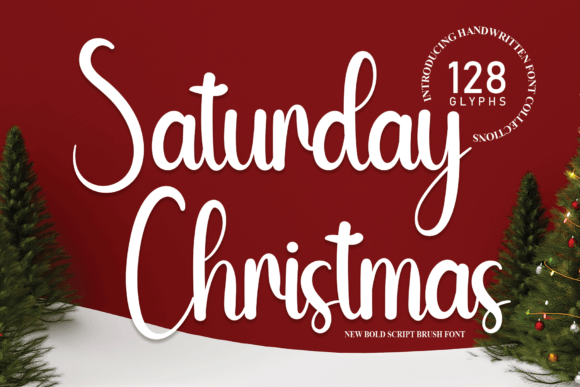
Journey through a world of festive cheer with Saturday Christmas Font, a script font family that evokes the magic of the holiday season. Inspired by the twinkling lights and warm embrace of Christmas, this font is a captivating blend of charm and elegance.
Crafted with meticulous care, Saturday Christmas exudes an enchanting handwritten charm that instantly adds a touch of warmth to your designs. Each letter dances across the screen, carrying with it a sense of joy and celebration.
Visualize your wedding invitations adorned with Saturday Christmas's delicate strokes, conveying the love and happiness of your special day. Envision thank you cards that radiate gratitude, adorned with this exquisite font that speaks volumes.
Let your quotes, greeting cards, and logos shine with a festive flair, captivating your audience with Saturday Christmas's unique personality. Unleash your creativity and explore the boundless possibilities of this versatile font family, transforming your designs into masterpieces.
Step into the world of Saturday Christmas Font today and let your imagination soar. Experience the magic of the holidays with every keystroke, and create designs that resonate with the true spirit of Christmas.